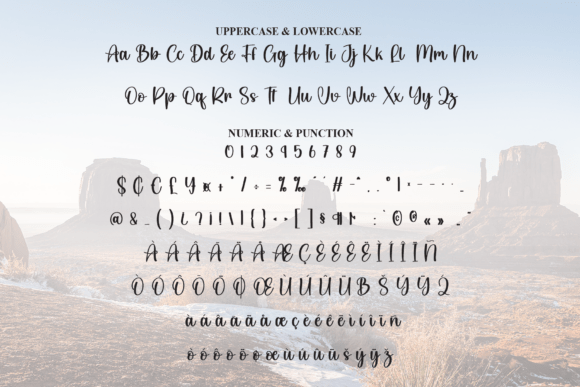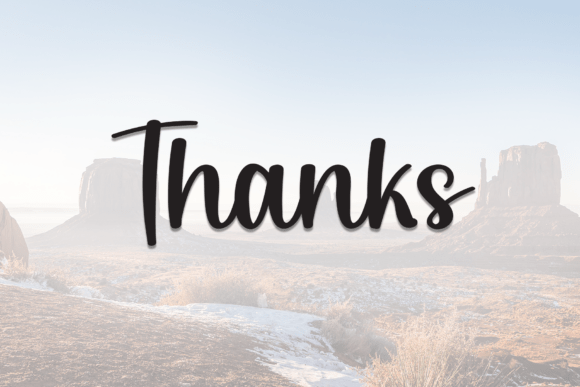
Western Font
Elegant meets handwritten in Western, a flowing script font with a modern country soul. Its graceful strokes and sweeping lines make it a lovely choice for weddings, rustic branding, quotes, or boutique signage—where softness and sophistication intertwine.